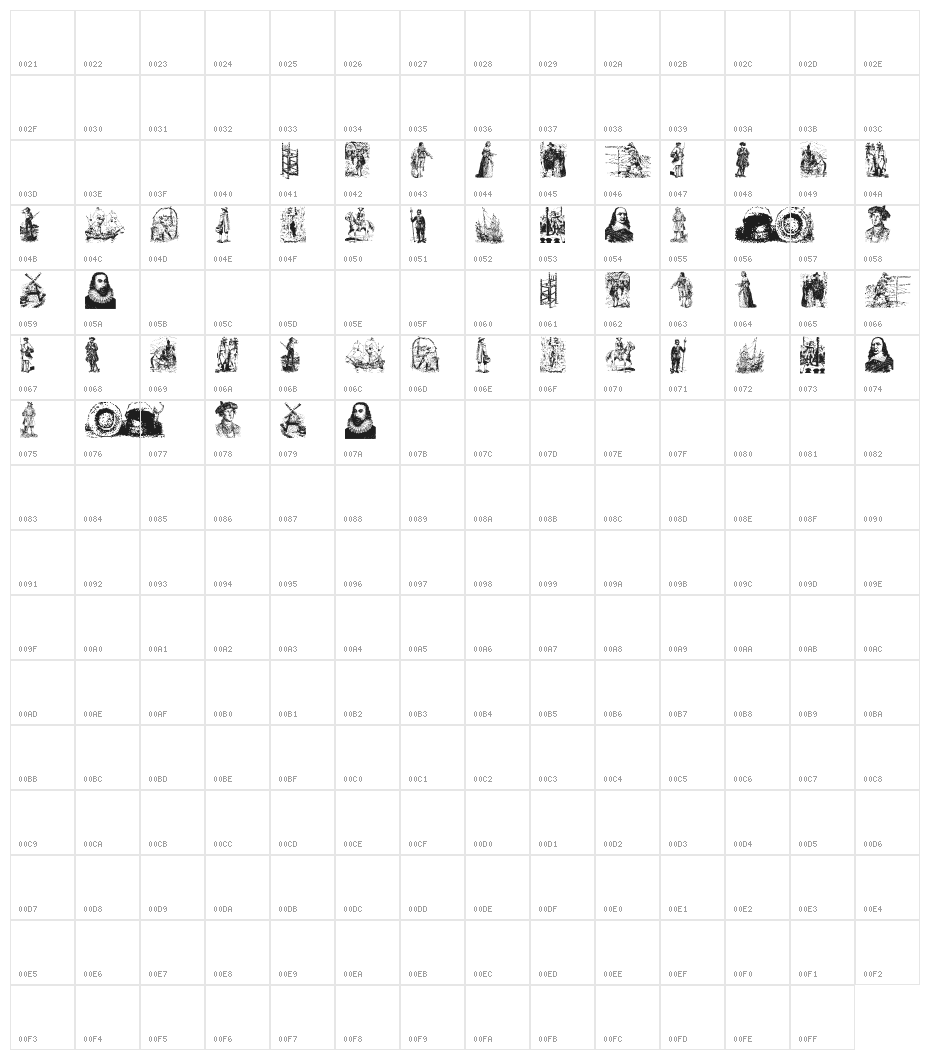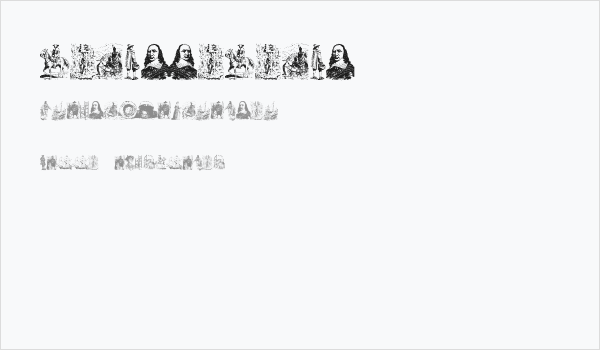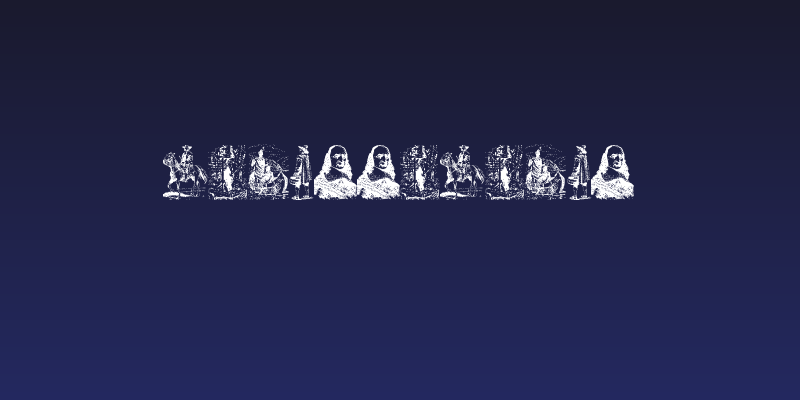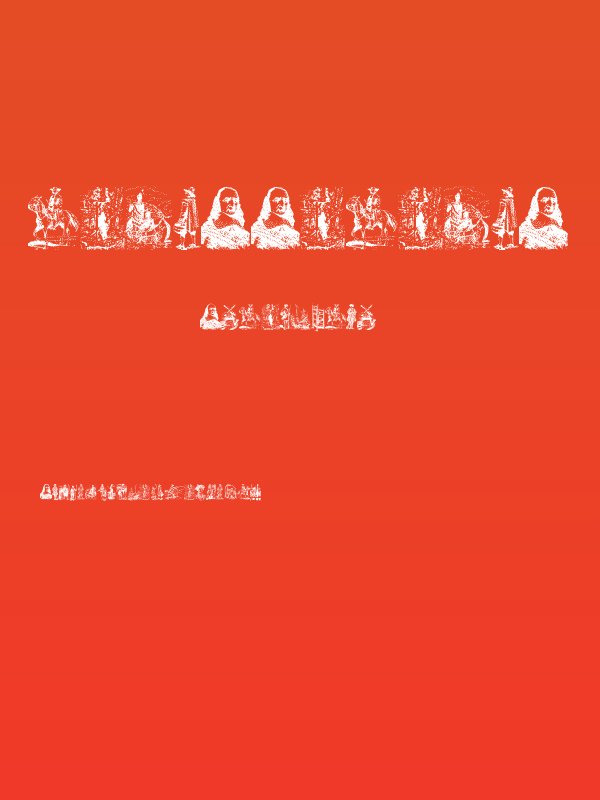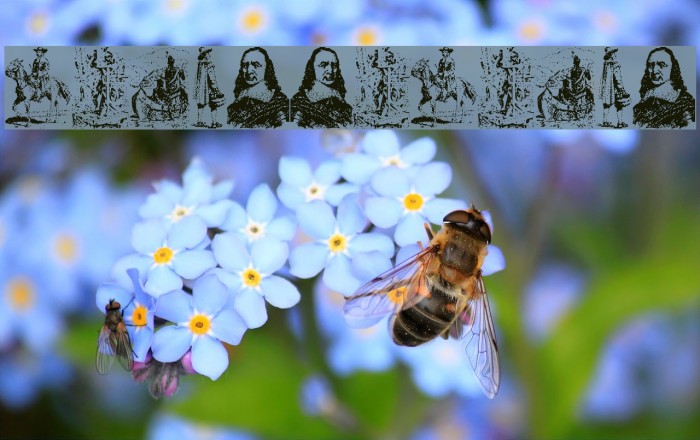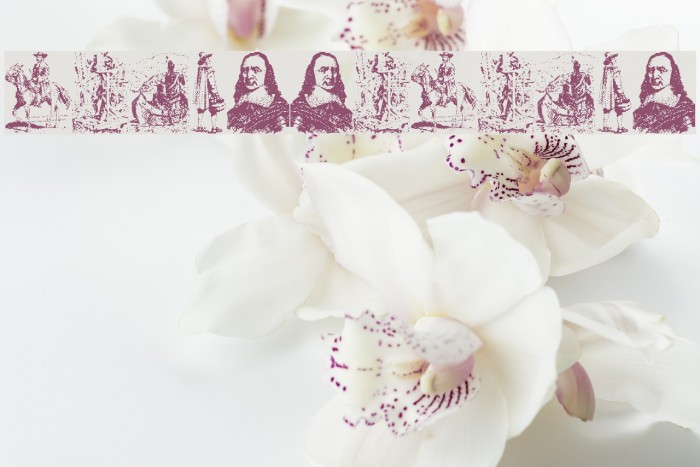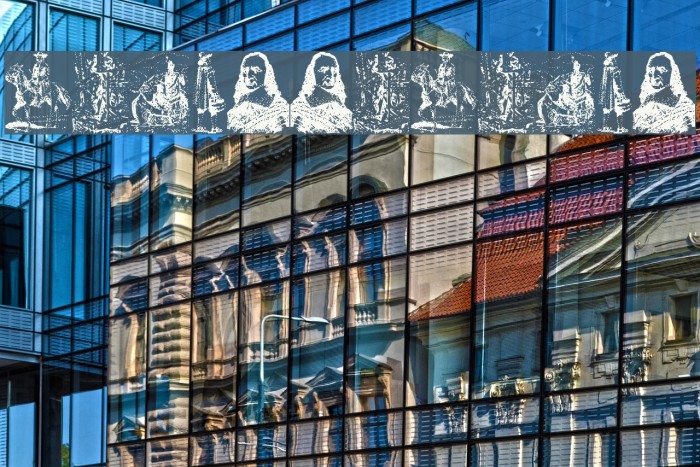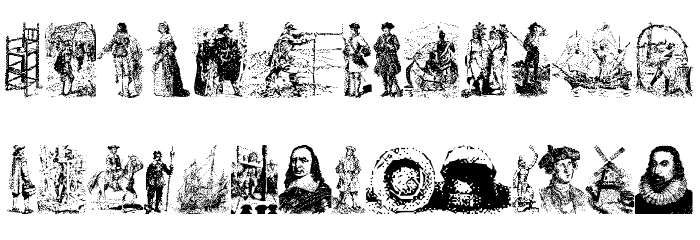
PointToPoint Font
PointToPoint Description
A highly decorative and illustrative font where each character is formed by detailed vintage-style engravings of historical figures, scenes, and objects, giving each letter a unique pictorial appearance.
| Overall Style | Vintage, Decorative |
| Use Case | Logos, Headlines, Posters, Artistic projects |
| Proposed Projects | Book covers, event posters, themed invitations, educational materials, historical displays, artistic branding. |